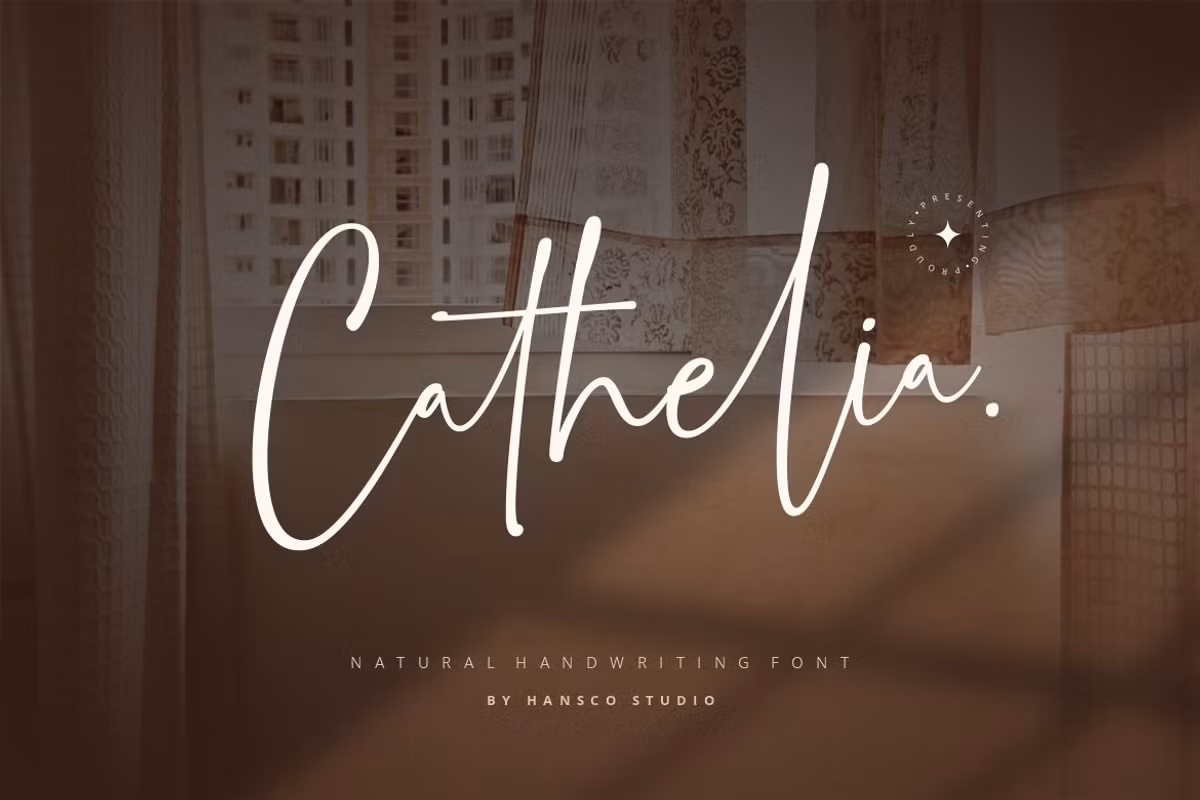
Cathelia Handwriting Font Free Download
Cathelia Handwriting Font Free Download is a delicate and elegant script typeface that beautifully mimics the fluid strokes of real handwriting. With its graceful curves, soft flow, and feminine charm, this font is ideal for wedding invitations, personal branding, social media quotes, greeting cards, and boutique product packaging.
Cathelia Handwriting Font Free Download brings a personal and heartfelt touch to your designs, combining modern sophistication with natural hand-drawn character. It’s easy to read while still offering a distinct, stylish flair that stands out in elegant and romantic compositions.